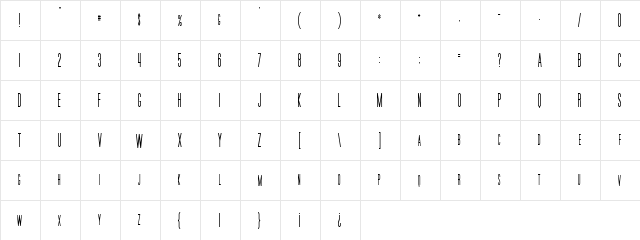
Movie Poster Condensed Regular
Design Context for Movie Poster Condensed Typeface
Movie Poster Condensed offers clean, dependable letterforms without strong stylistic allegiance, making it a practical choice for designers who need flexibility. Its narrow stance lets it pack a punch even in space-constrained designs.
Pro Tip: Pair Movie Poster Condensed with a font of contrasting weight or personality to build a more expressive typographic hierarchy.